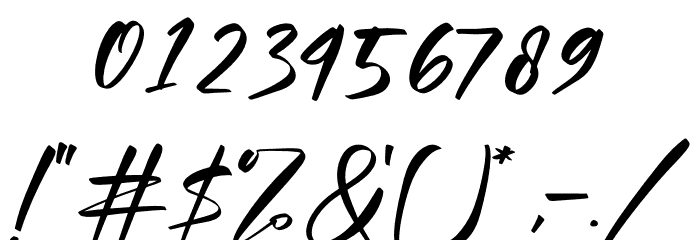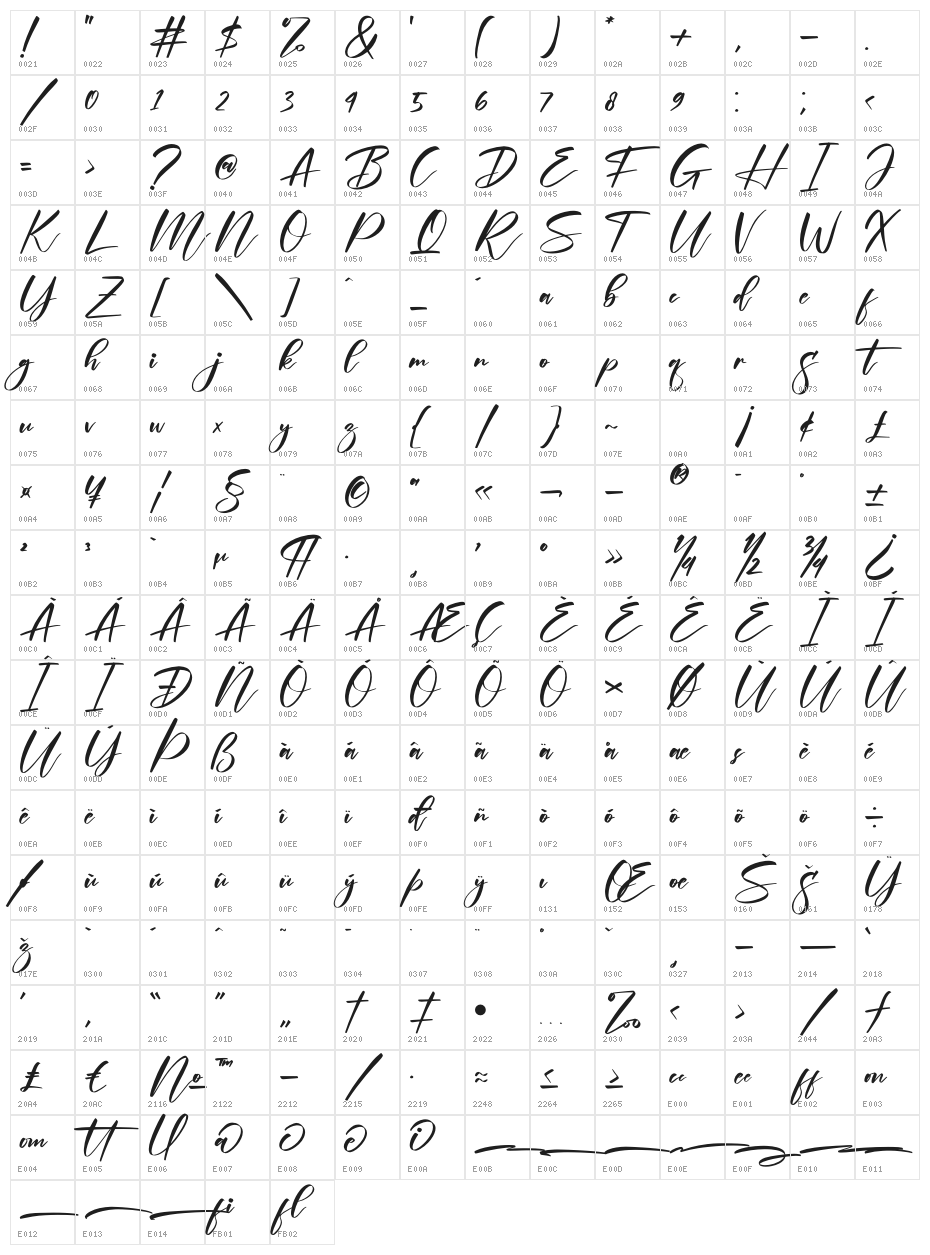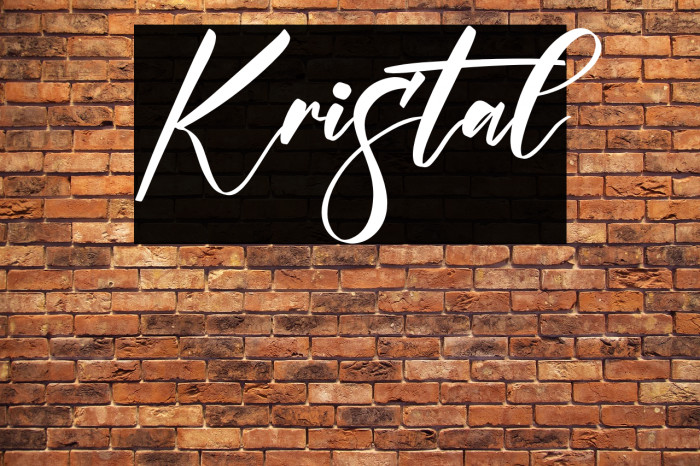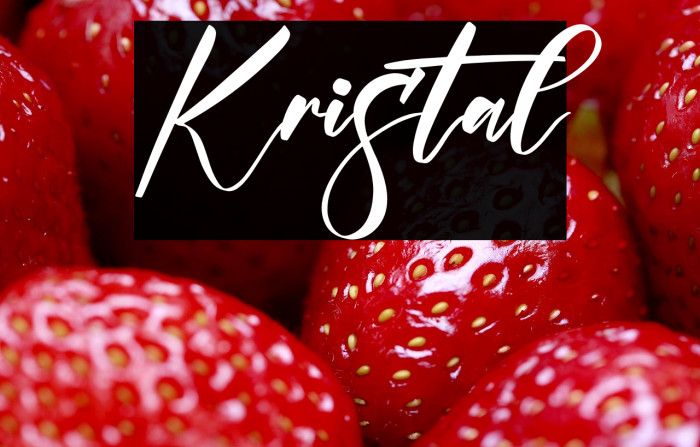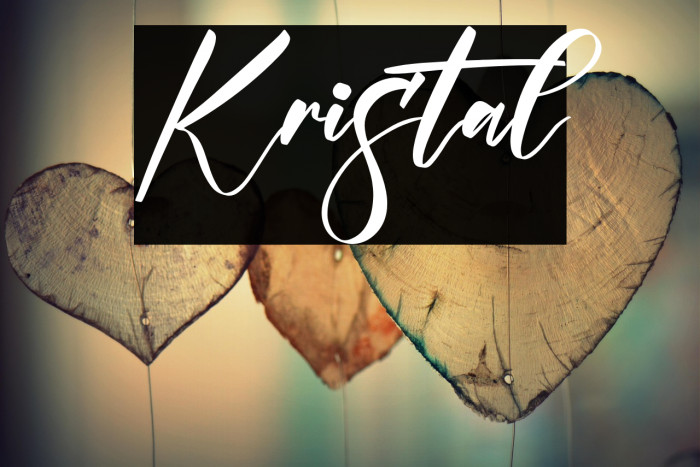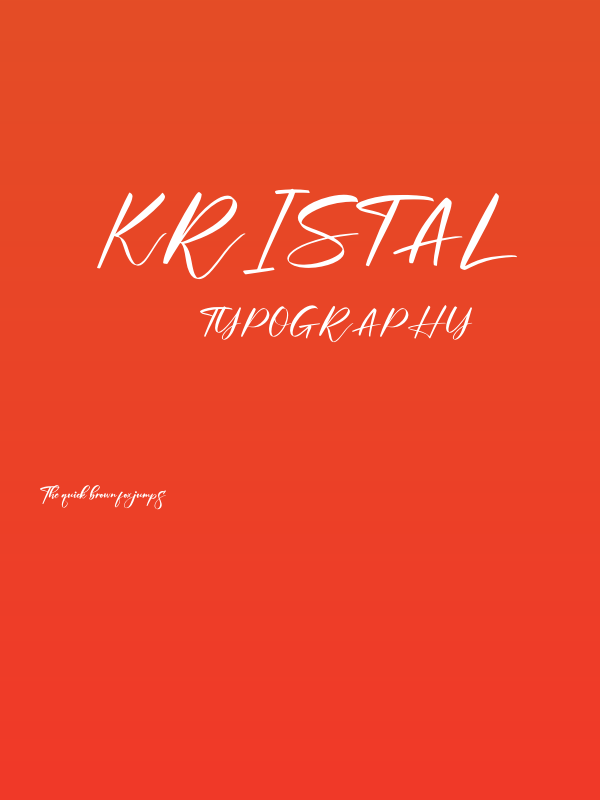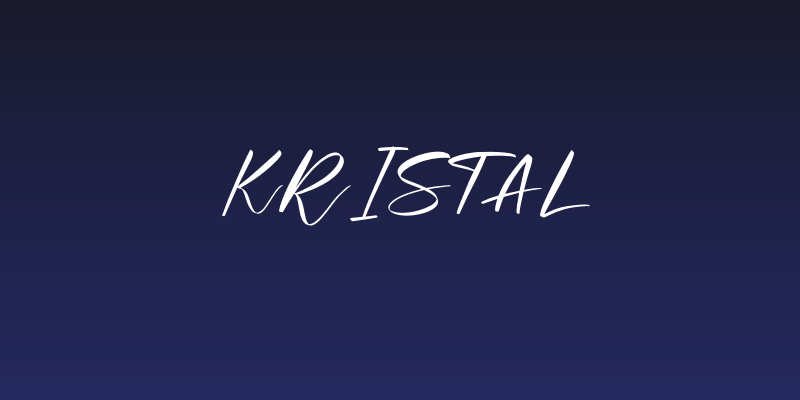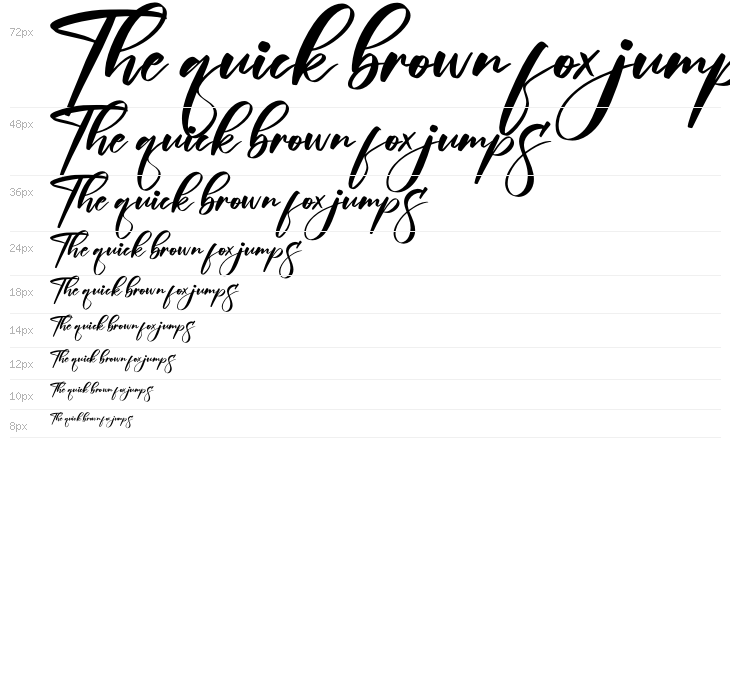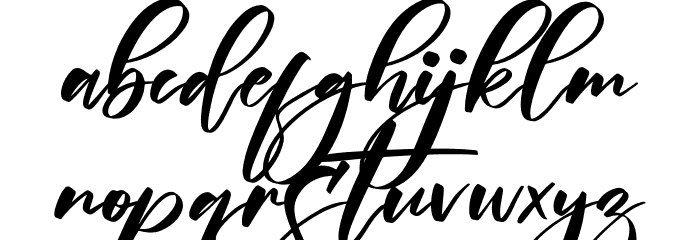
Kristal Font
Kristal Description
This font exudes a dynamic and elegant style, characterized by its flowing script and cursive elements. The uppercase letters are bold and slightly slanted, giving a sense of movement and fluidity. The lowercase letters are intricately connected, with some characters featuring elaborate loops and swirls. The numbers maintain the same cursive style, ensuring consistency throughout. Special characters are designed with the same attention to detail, making them seamlessly integrate with the rest of the font. The overall appearance is both sophisticated and artistic, suitable for projects that require a touch of elegance and creativity.
| Proposed Projects | Ideal for wedding invitations, branding, logo design, and elegant stationery. |